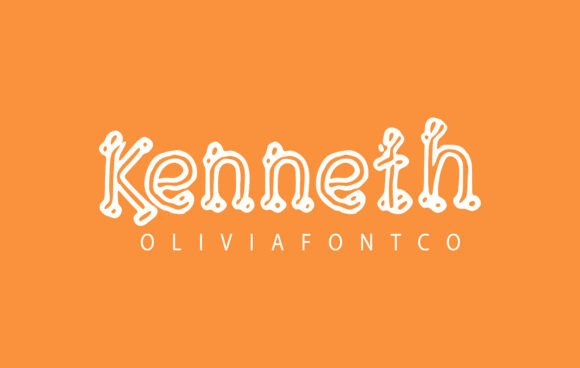
Kenneth Font: The Ultimate Handwritten Font for Creative Expression
Kenneth Font is an authentic handwritten font that has captured the hearts of designers and creative enthusiasts alike. With its romantic touch and expert design, this font has the potential to elevate your creative ideas to new heights. In this article, we’ll dive into the world of Kenneth Font, exploring its features, benefits, and uses, as well as provide tips on how to make the most of this incredible font.
What is Kenneth Font?
Kenneth Font is a carefully crafted handwritten font that exudes a sense of elegance and sophistication. Its authentic feel and romantic touch make it perfect for a wide range of design projects, from magazine headlines to wedding invitations. This font is designed to be highly legible, making it suitable for use as both title and body text.
Key Features of Kenneth Font
- Authentic Handwritten Style: Kenneth Font boasts an authentic handwritten style that adds a personal touch to any design project.
- Romantic Touch: The font’s romantic touch makes it perfect for designs that require a sense of elegance and sophistication.
- High Legibility: Kenneth Font is designed to be highly legible, making it suitable for use as both title and body text.
- Versatile: This font can be used for a wide range of design projects, including magazine headlines, social media graphics, branding, wedding invitations, and more.
Benefits of Using Kenneth Font
So, why choose Kenneth Font for your design projects? Here are just a few benefits of using this incredible font:
- Stand Out from the Crowd: With Kenneth Font, you can create designs that stand out from the crowd and leave a lasting impression on your audience.
- Elegance and Sophistication: The font’s romantic touch and elegant style add a level of sophistication to any design project.
- Easy to Read: Kenneth Font’s high legibility makes it easy for readers to quickly scan and understand your content.
- Time-Saving: With Kenneth Font, you can create professional-looking designs in no time, saving you time and effort.
Use Cases for Kenneth Font
Kenneth Font is a versatile font that can be used for a wide range of design projects. Here are some use cases to get you started:
- Magazine Headlines: Use Kenneth Font to create eye-catching headlines that grab readers’ attention.
- Social Media Graphics: Add a touch of elegance to your social media graphics with Kenneth Font.
- Branding: Use Kenneth Font to create a consistent brand identity that exudes sophistication and elegance.
- Wedding Invitations: Make your wedding invitations truly special with Kenneth Font’s romantic touch.
- Cards and Stationery: Use Kenneth Font to create beautiful cards and stationery that showcase your personal style.
Tips for Using Kenneth Font
To get the most out of Kenneth Font, here are some tips to keep in mind:
- Experiment with Font Sizes: Play around with different font sizes to find the perfect balance for your design.
- Pair with Other Fonts: Kenneth Font pairs well with other fonts, so don’t be afraid to experiment with different combinations.
- Use for Emphasis: Use Kenneth Font to draw attention to specific parts of your design, such as headlines or calls-to-action.
- Keep it Simple: Don’t overcomplicate your design – Kenneth Font is beautiful on its own, so let it shine!
- Is Kenneth Font suitable for body text?: Yes, Kenneth Font is highly legible and suitable for use as body text.